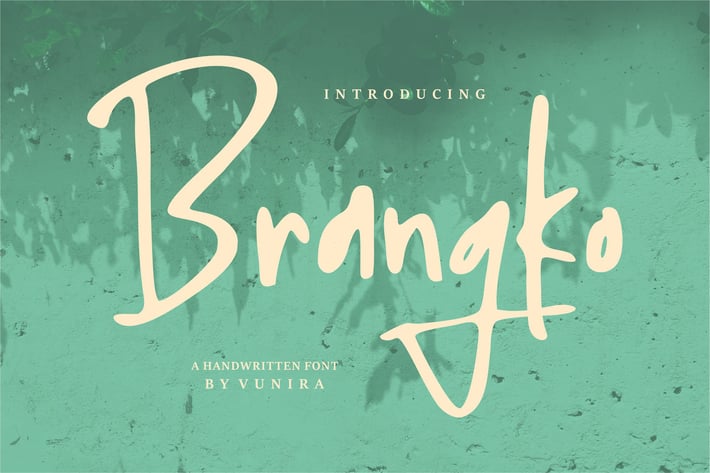
Brangko | A Handwritten Font
Brangko | A Handwritten Font with a calligraphy style, So beautiful on invitation like greeting cards, branding materials, business cards, quotes, posters, and more!